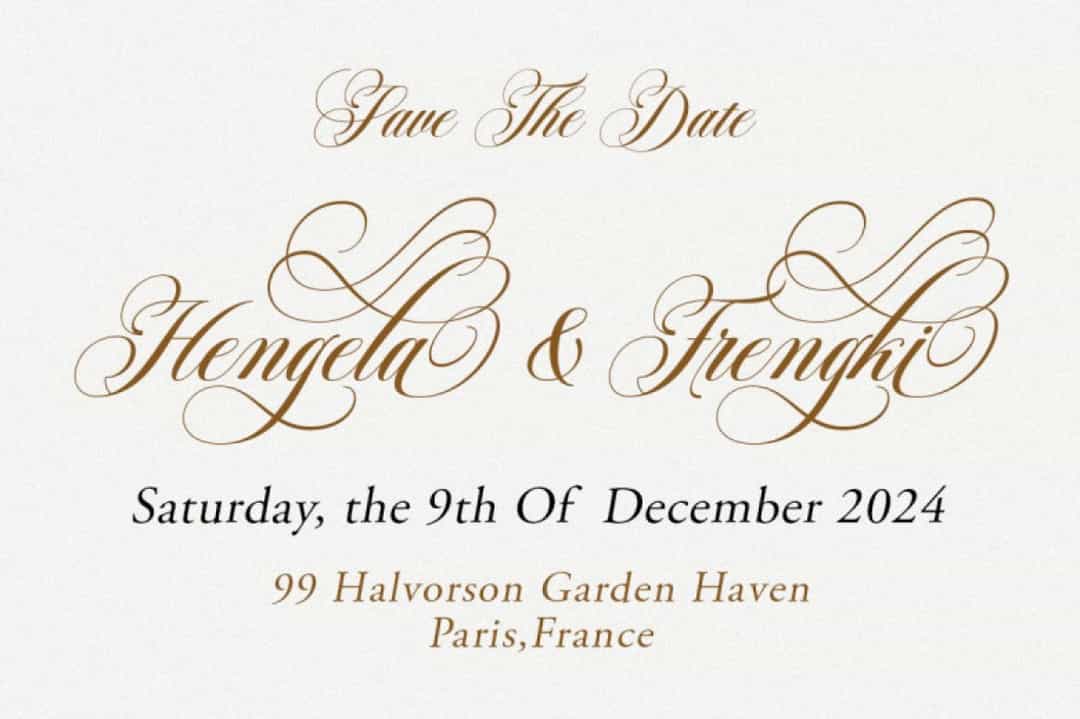
Bridgerton The Script is an attractive calligraphy typeface with beautiful shifting characters, designed in copper-style decorative script form with modern touches to emphasize classiness in design. Bridgerton script Font stands out because its clean lines and feminine shapes make for effortless reading thanks to numerous luxurious connections between letters.